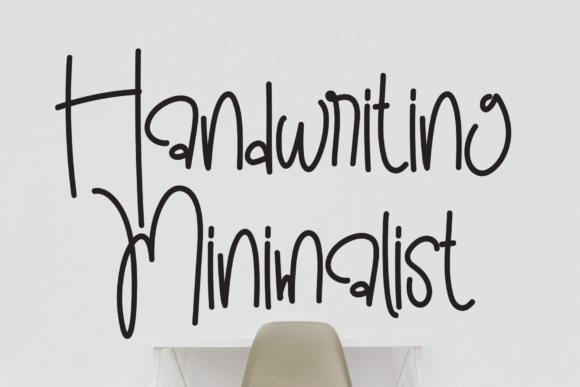
Introducing Handwriting Minimalist Font: The Perfect Choice for Chalkboard Quotes and Teaching Materials
In the world of typography, fonts play a crucial role in conveying messages and adding personality to designs. When it comes to creating chalkboard quotes, teaching materials, or any other type of educational content, the right font can make all the difference. This is where Handwriting Minimalist Font comes in – a cute and quirky lettered handwritten font that’s designed to add a personal and realistic feel to your designs.
What is Handwriting Minimalist Font?
Handwriting Minimalist Font is a unique and charming font that’s inspired by traditional handwriting. Its authentic look and feel make it an ideal choice for creating chalkboard quotes, teaching materials, and other educational content. The font’s minimalist design ensures that it’s easy to read and understand, making it perfect for use in a variety of applications.
Key Features of Handwriting Minimalist Font
So, what makes Handwriting Minimalist Font so special? Here are some of its key features:
- Cute and Quirky Design: Handwriting Minimalist Font has a playful and charming design that’s sure to capture the attention of your audience.
- Authentic Look: The font’s authentic look and feel make it perfect for creating chalkboard quotes and teaching materials that require a personal touch.
- Easy to Read: Despite its minimalist design, Handwriting Minimalist Font is easy to read and understand, making it perfect for use in educational content.
- Versatile: The font can be used in a variety of applications, from chalkboard quotes to teaching materials, and even digital content.
Benefits of Using Handwriting Minimalist Font
So, why should you choose Handwriting Minimalist Font for your designs? Here are some of the benefits of using this font:
- Adds a Personal Touch: Handwriting Minimalist Font adds a personal and realistic feel to your designs, making them more engaging and relatable.
- Enhances Readability: The font’s clear and easy-to-read design ensures that your message is conveyed effectively, making it perfect for educational content.
- Unique and Eye-Catching: Handwriting Minimalist Font is a unique and eye-catching font that’s sure to capture the attention of your audience.
- Time-Saving: The font’s minimalist design ensures that you can create professional-looking designs quickly and easily, saving you time and effort.
In conclusion, Handwriting Minimalist Font is a unique and charming font that’s perfect for creating chalkboard quotes, teaching materials, and other educational content. Its authentic look and feel, combined with its ease of use and versatility, make it an ideal choice for designers and educators alike. By incorporating Handwriting Minimalist Font into your designs, you can add a personal and realistic feel, enhance readability, and create engaging and effective content.
- What is Handwriting Minimalist Font? Handwriting Minimalist Font is a cute and quirky lettered handwritten font designed for creating chalkboard quotes, teaching materials, and other educational content.
- Is Handwriting Minimalist Font easy to read? Yes, Handwriting Minimalist Font is easy to read and understand, making it perfect for use in educational content.